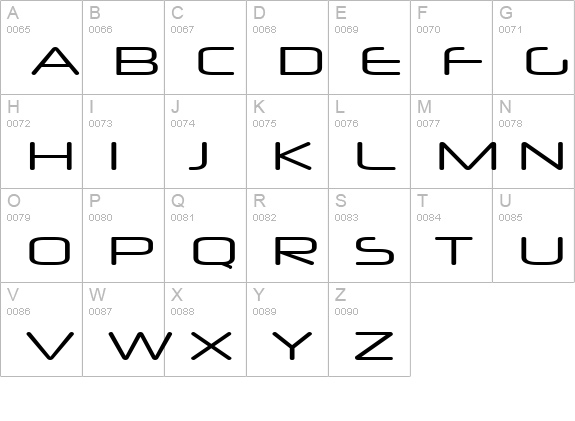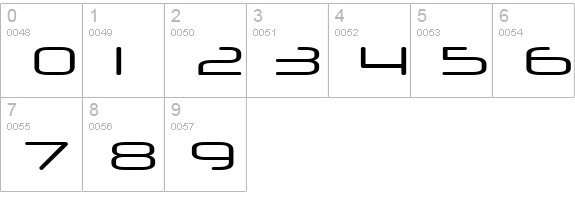
Neuropol X Xp Font Details
Neuropol X Xp font is a futuristic and stylish typeface that is perfect for adding a modern touch to your designs. Its sleek and edgy design makes it ideal for projects that require a contemporary look. The font features sharp angles and clean lines, giving it a distinct and eye-catching appearance. One of the best things about Neuropol X Xp font is that it is available for free download at FontsMarket.com. This means you can easily access this unique and versatile font to use in your projects without any cost. Whether you are working on a branding project, website design, or any other creative endeavor, Neuropol X Xp font will elevate your work with its modern aesthetic. Download Neuropol X Xp font for free today and unleash your creativity with this innovative and dynamic typeface.